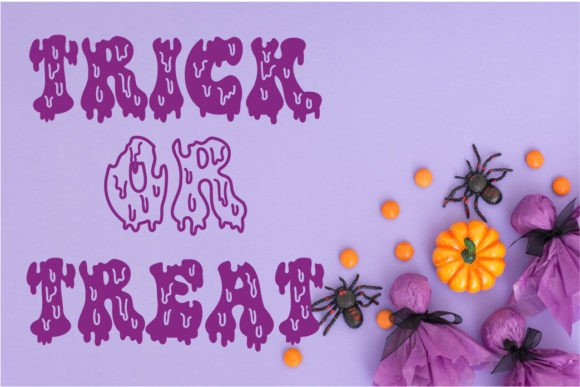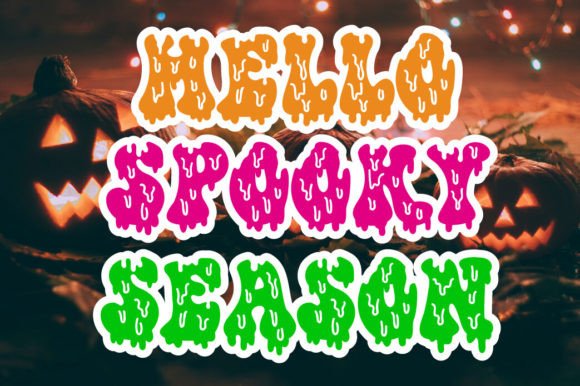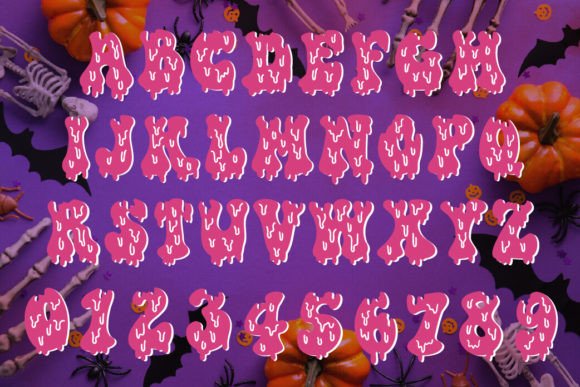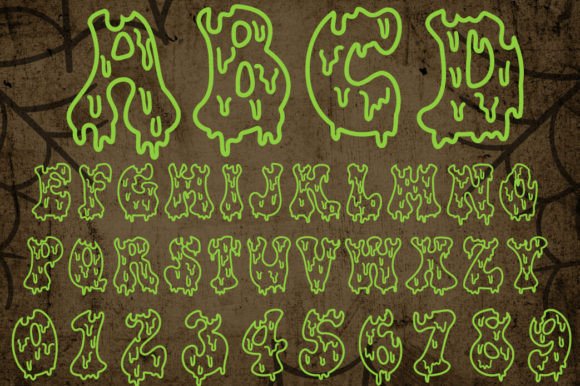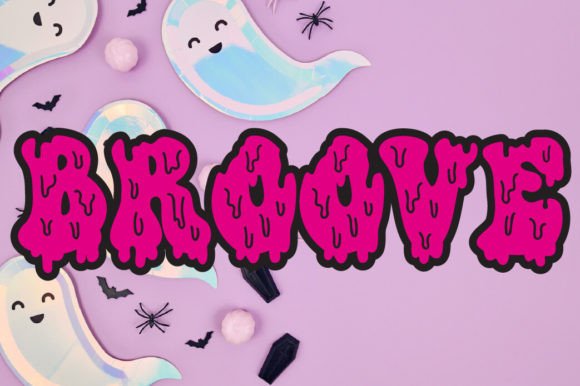
Unleash the Spooky Spirit with Broove Font: A Quirky Halloween Display Font
As the spookiest time of the year approaches, designers and crafters are on the lookout for the perfect font to add a touch of eeriness to their Halloween-themed projects. Look no further than Broove Font, a unique and intriguing display font that’s sure to cast a spell on your audience. In this article, we’ll dive into the world of Broove Font, exploring its characteristics, uses, and benefits for designers and crafters alike.
What is Broove Font?
Broove Font is a one-of-a-kind Halloween display font that’s a little bit quirky, yet incredibly versatile. Its distinctive design makes it perfect for a wide range of contexts, from spooky invitations and party decorations to creepy crafts and eerie editorial content. Whether you’re a designer, crafter, or simply a Halloween enthusiast, Broove Font is sure to add a touch of macabre magic to your projects.
Characteristics of Broove Font
So, what sets Broove Font apart from other display fonts? Here are a few of its key characteristics:
- Unique lettering style: Broove Font features a distinctive lettering style that’s both quirky and captivating. Its irregular shapes and lines add a touch of whimsy to any design.
- Halloween-themed: As a Halloween display font, Broove Font is specifically designed to evoke the spooky spirit of the season. Its creepy-cute aesthetic is perfect for Halloween-themed projects.
- Versatile: Despite its quirky design, Broove Font is incredibly versatile. It can be used for a wide range of projects, from digital designs to print materials.
Uses for Broove Font
So, how can you use Broove Font in your designs and crafts? Here are a few ideas to get you started:
- Halloween invitations: Create spooky invitations for Halloween parties, trick-or-treat events, or haunted house attractions.
- Party decorations: Use Broove Font to create eye-catching party decorations, such as banners, signs, and garlands.
- Creepy crafts: Add a touch of eeriness to your Halloween crafts, such as pumpkin carvings, ghostly decorations, or spooky jewelry.
- Editorial content: Use Broove Font to add a touch of Halloween flair to editorial content, such as blog posts, articles, or social media graphics.
Benefits of Using Broove Font
So, why choose Broove Font for your Halloween designs and crafts? Here are a few benefits to consider:
- Stand out from the crowd: With its unique and quirky design, Broove Font is sure to help your designs and crafts stand out from the crowd.
- Easy to use: Broove Font is incredibly easy to use, even for designers and crafters with limited font experience.
- Versatile: As mentioned earlier, Broove Font is incredibly versatile, making it perfect for a wide range of projects and applications.
Tips for Using Broove Font
Here are a few tips for getting the most out of Broove Font:
- Experiment with different colors: Broove Font looks great in a variety of colors, from bold and bright to muted and pastel.
- Pair with other fonts: Try pairing Broove Font with other fonts to create a unique and eye-catching design.
- Use it sparingly: While Broove Font is perfect for headlines and titles, it can be overwhelming if used too much. Use it sparingly to create a lasting impact.